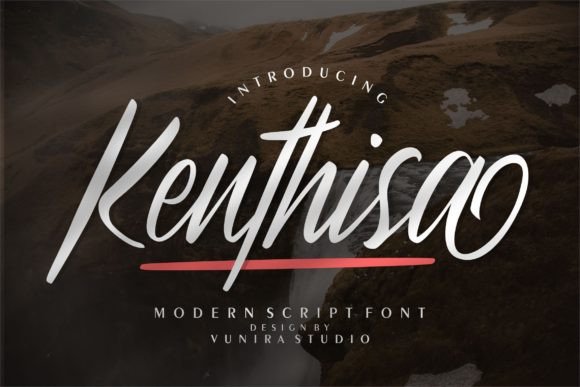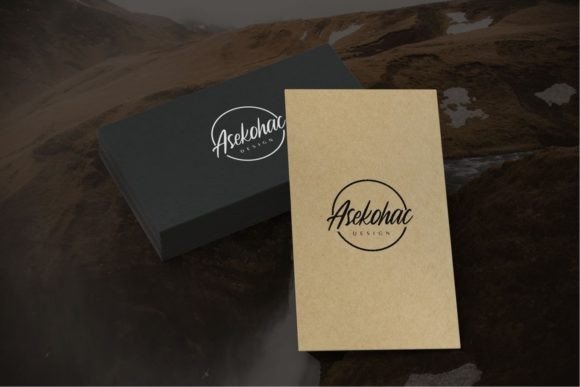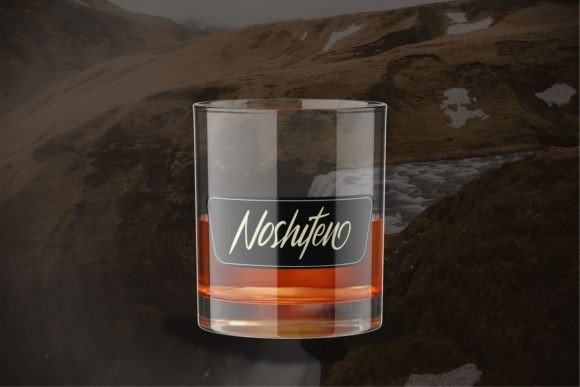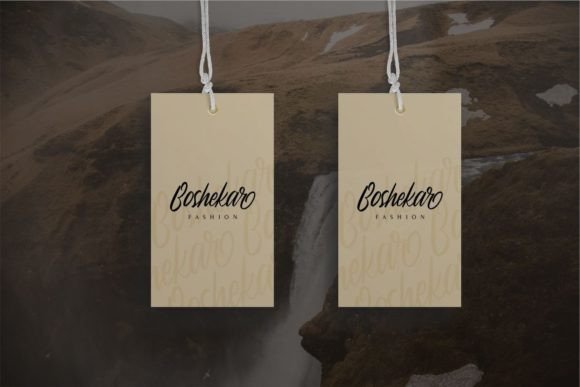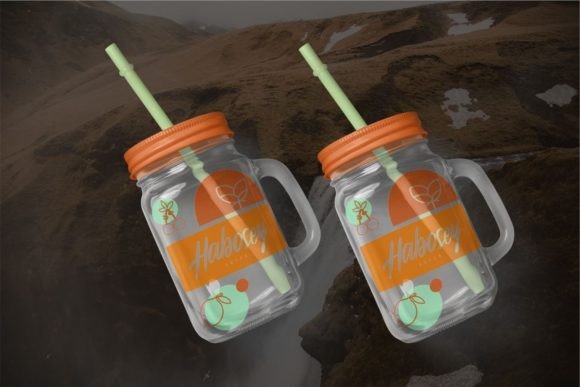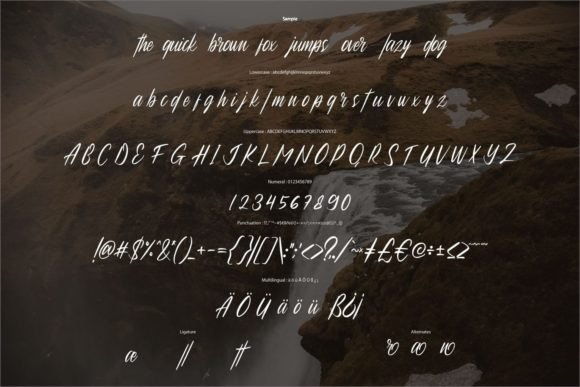
Kenthisa Font
About Kenthisa Font
Kenthisa stands out as a distinctive and elegant handwritten font, offering a unique touch that enhances the beauty of a range of designs. With its personalized style, this font is a perfect choice for various applications, including wedding invitations, thank-you cards, greeting cards, logos, and more. Its versatility allows it to add a beautiful and customized aesthetic to any project.
In the realm of wedding invitations, Kenthisa brings a sense of uniqueness and elegance. The font’s distinctive design adds a personalized touch, creating invitations that are both sophisticated and individualized. The handwritten style enhances the romantic and intimate feel, making it well-suited for special occasions.
For thank-you cards and greeting cards, Kenthisa provides a beautiful and expressive script that elevates your messages. The elegant letterforms contribute to a refined appearance, ensuring that your cards convey appreciation and warmth with a touch of sophistication. The font’s unique charm enhances the overall sentiment of your heartfelt messages.
In logo design, Kenthisa stands as a mark of elegance and originality. The handwritten style adds a human touch, making logos more approachable and memorable. Whether used for a personal brand or a business logo, Kenthisa ensures a distinctive and refined visual identity.
One notable feature is that Kenthisa is PUA encoded, allowing easy access to all glyphs and swashes. This feature provides users with the flexibility to explore and incorporate various character combinations and design elements seamlessly. The inclusion of swashes enhances the font’s versatility, allowing for further customization and creative expression.
In summary, Kenthisa is not just a font; it’s a tool that brings a unique and elegant flair to your designs. Whether you’re working on invitations, cards, logos, or other projects, Kenthisa ensures that your creations stand out with a personalized and sophisticated style. Let Kenthisa be the exquisite handwritten font that adds a touch of elegance and originality to your creative endeavors.